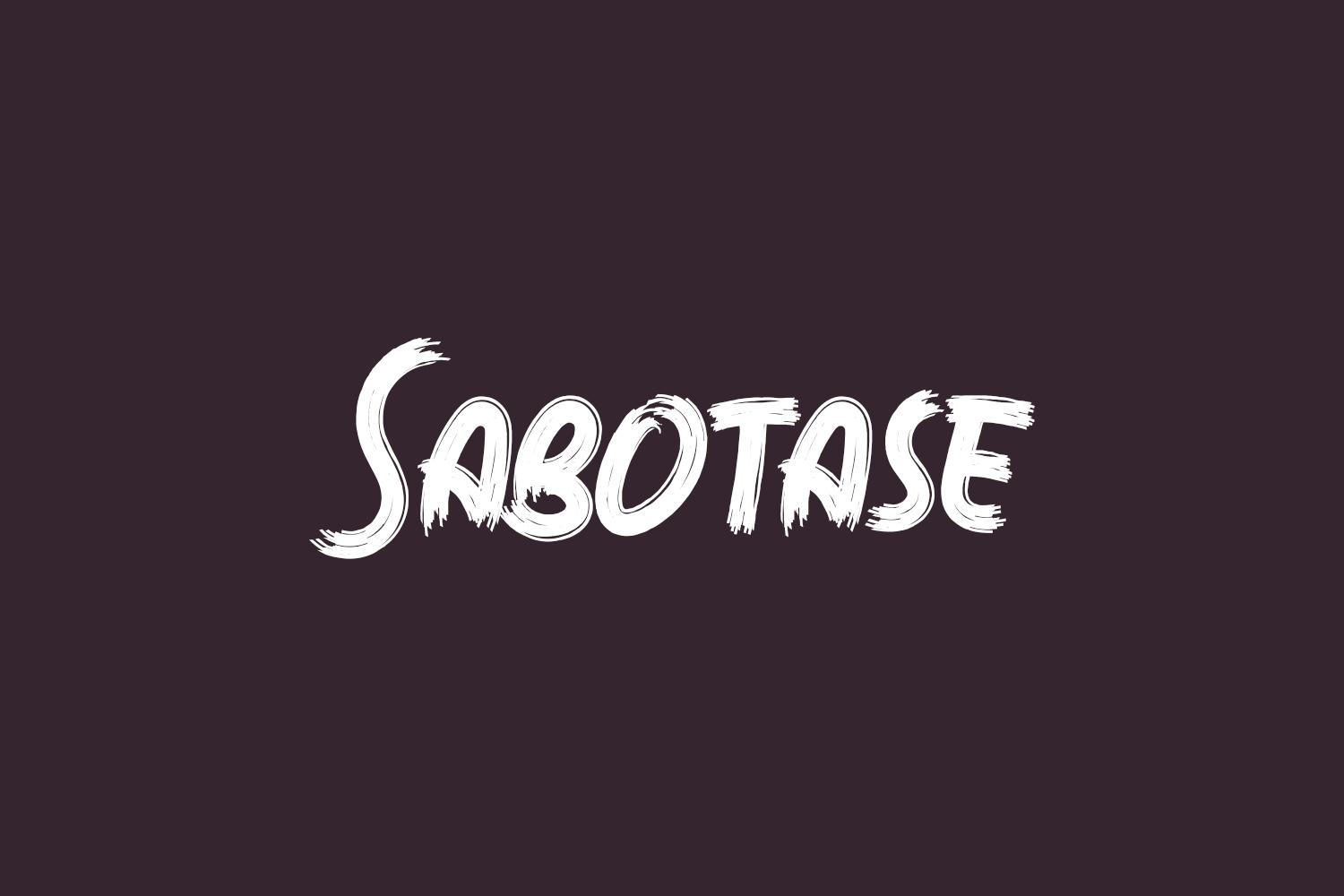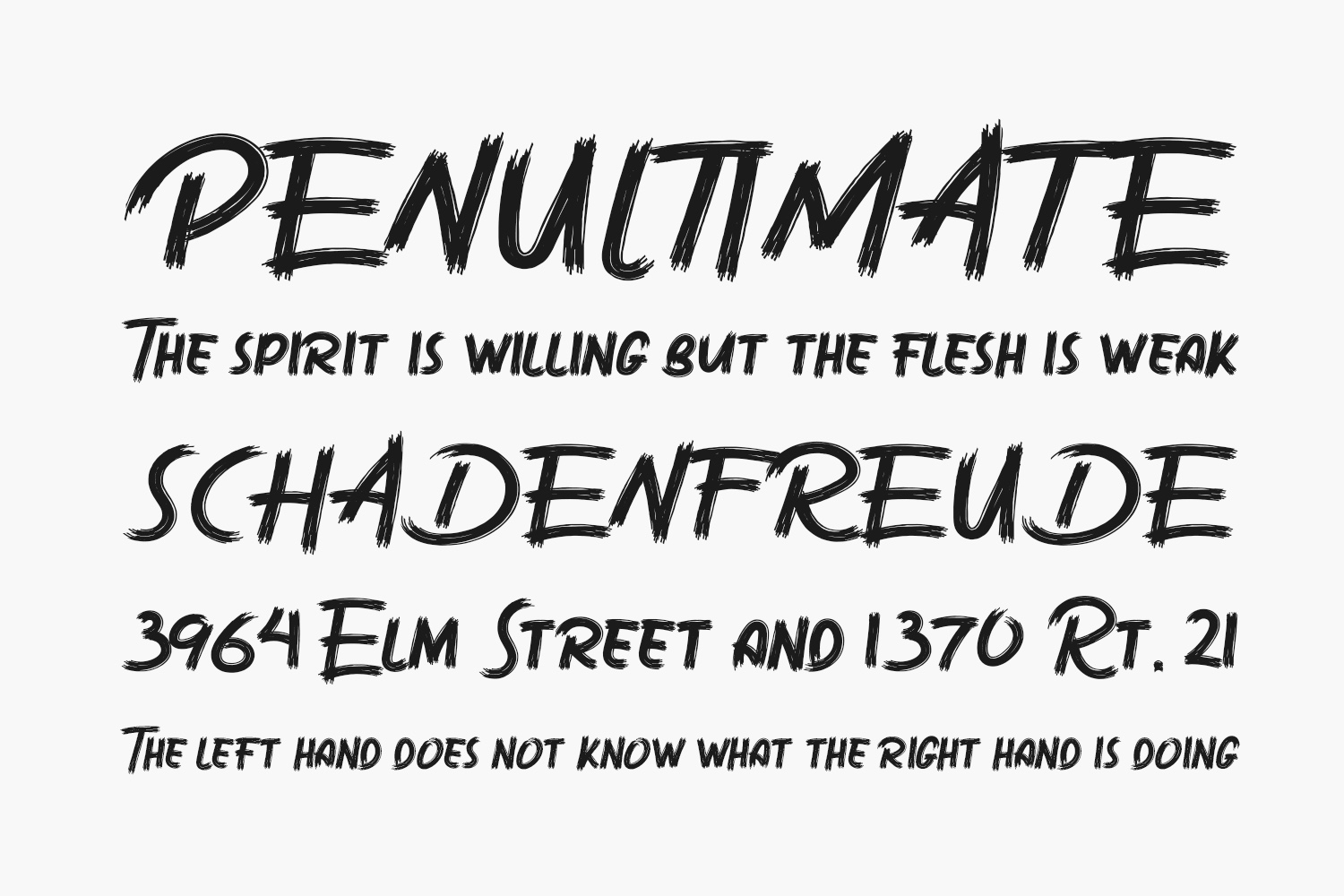
Sabotase Free Font is a bold and colorful display font. Its friendly feel makes this font incredibly versatile, fitting a wide range of contexts. Add it to your creative ideas and notice how it makes them stand out. Sabotase Free Font was designed by Typotopia Studio and is free for personal use only. Please purchase the full version for commercial use.